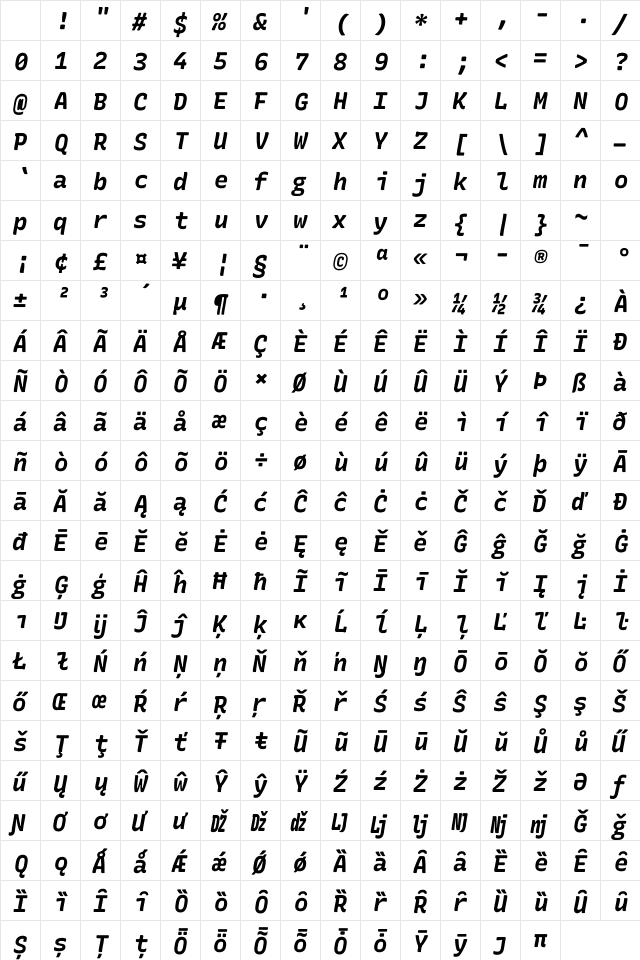
Complete Rec Mono SemiCasual Bold Italic glyph index. Displaying only characters natively supported by Rec Mono SemiCasual Bold Italic font.
Rec Mono SemiCasual uses fixed-width spacing throughout, giving it the structured, systematic character associated with coding environments and technical documentation. The slanted form adds forward momentum and visual energy. Its bold stroke weight gives it real presence on the page.